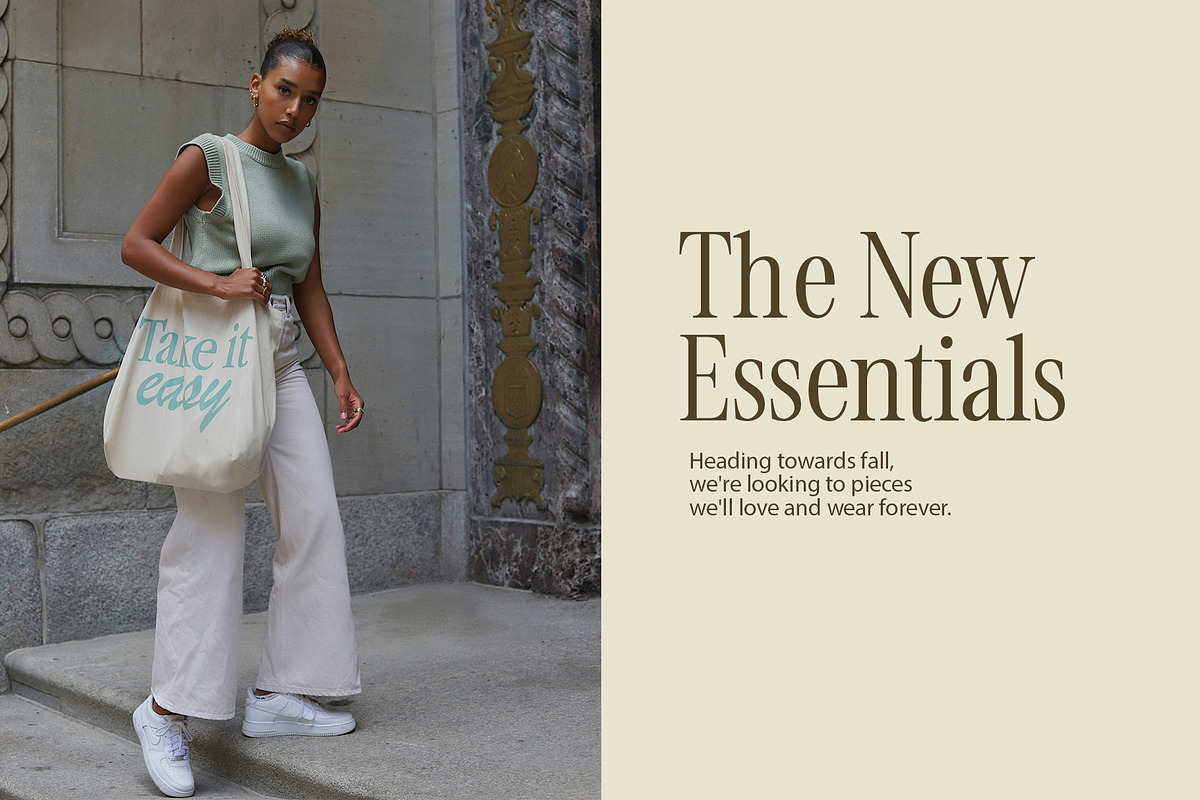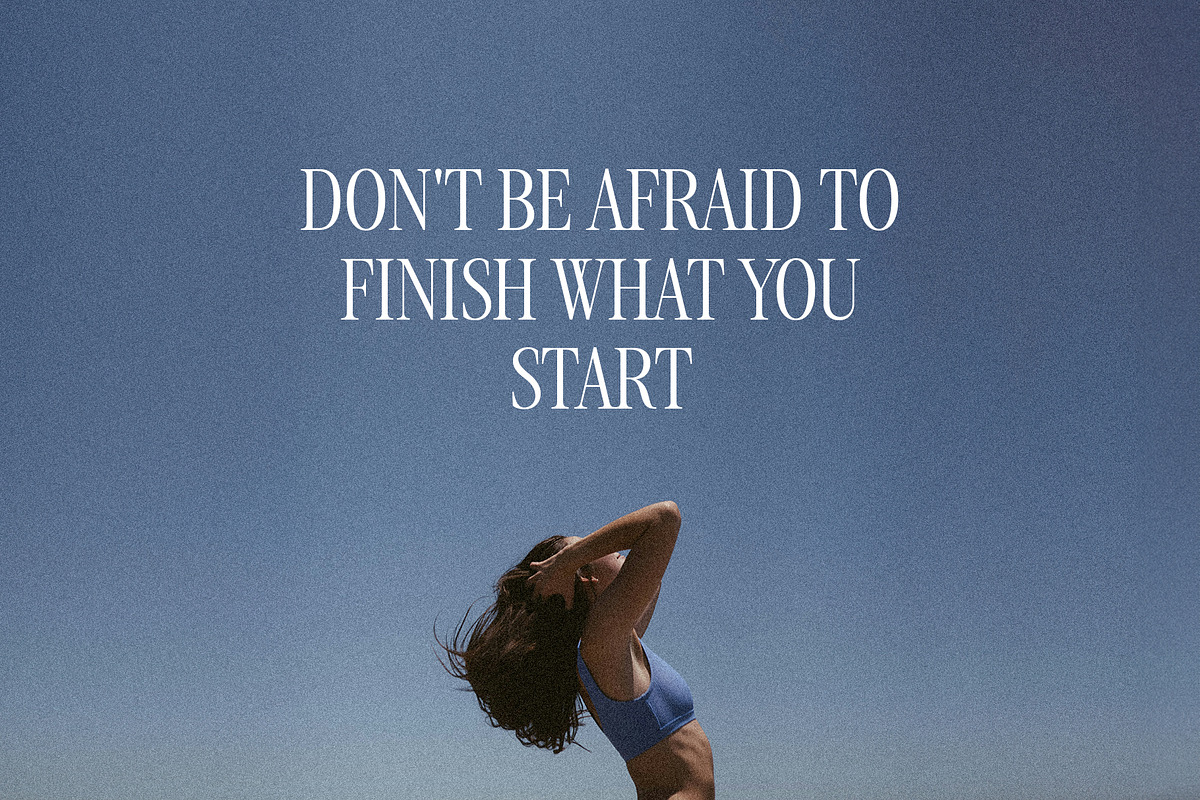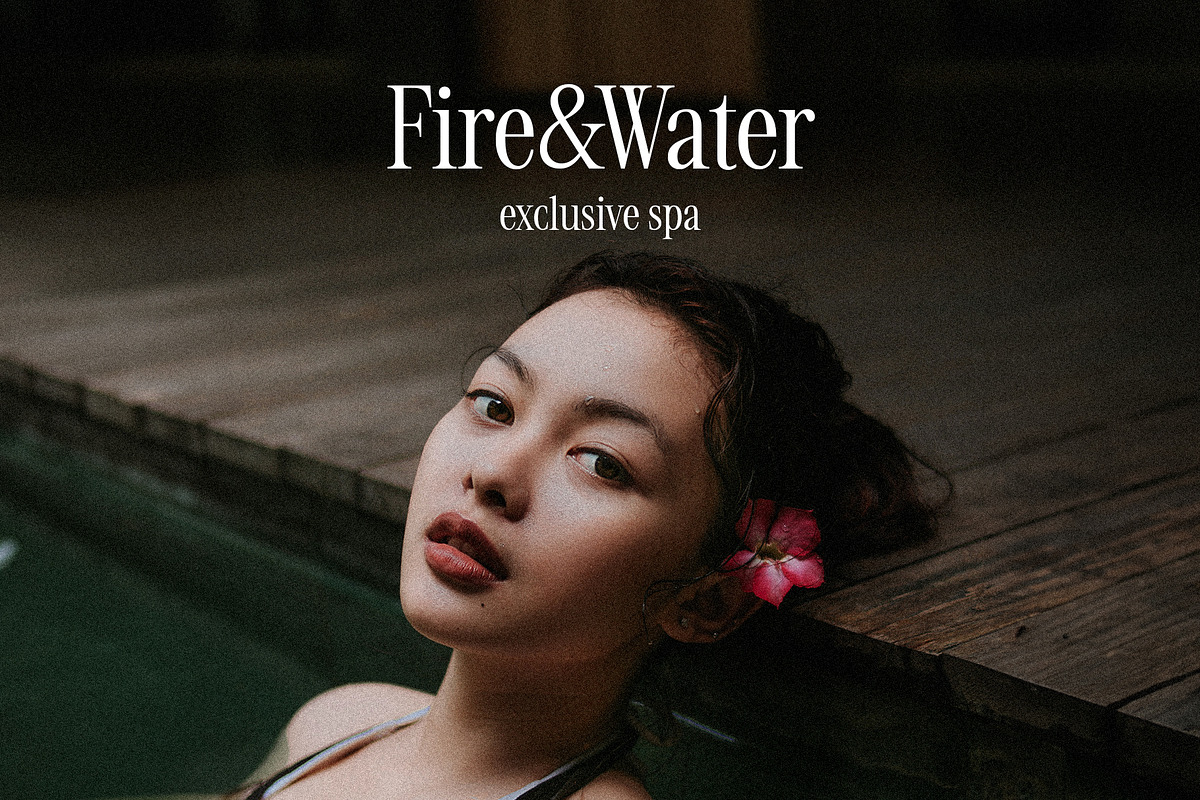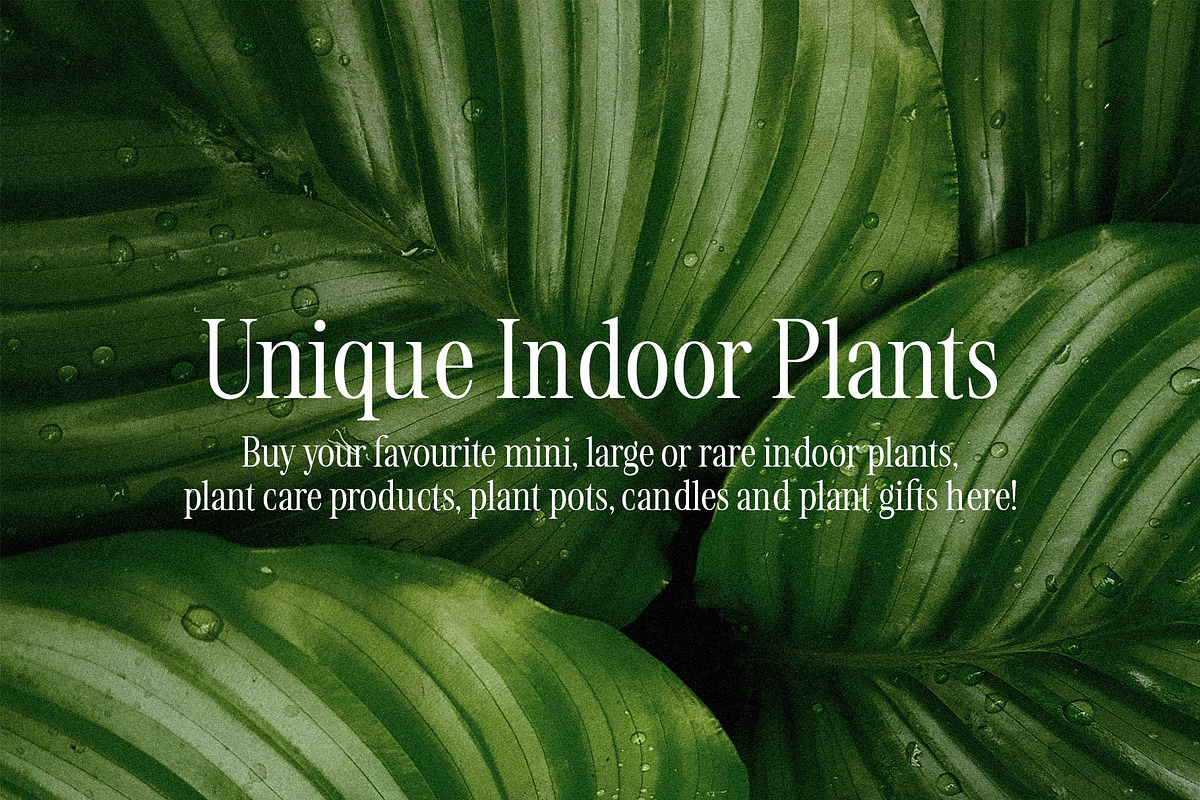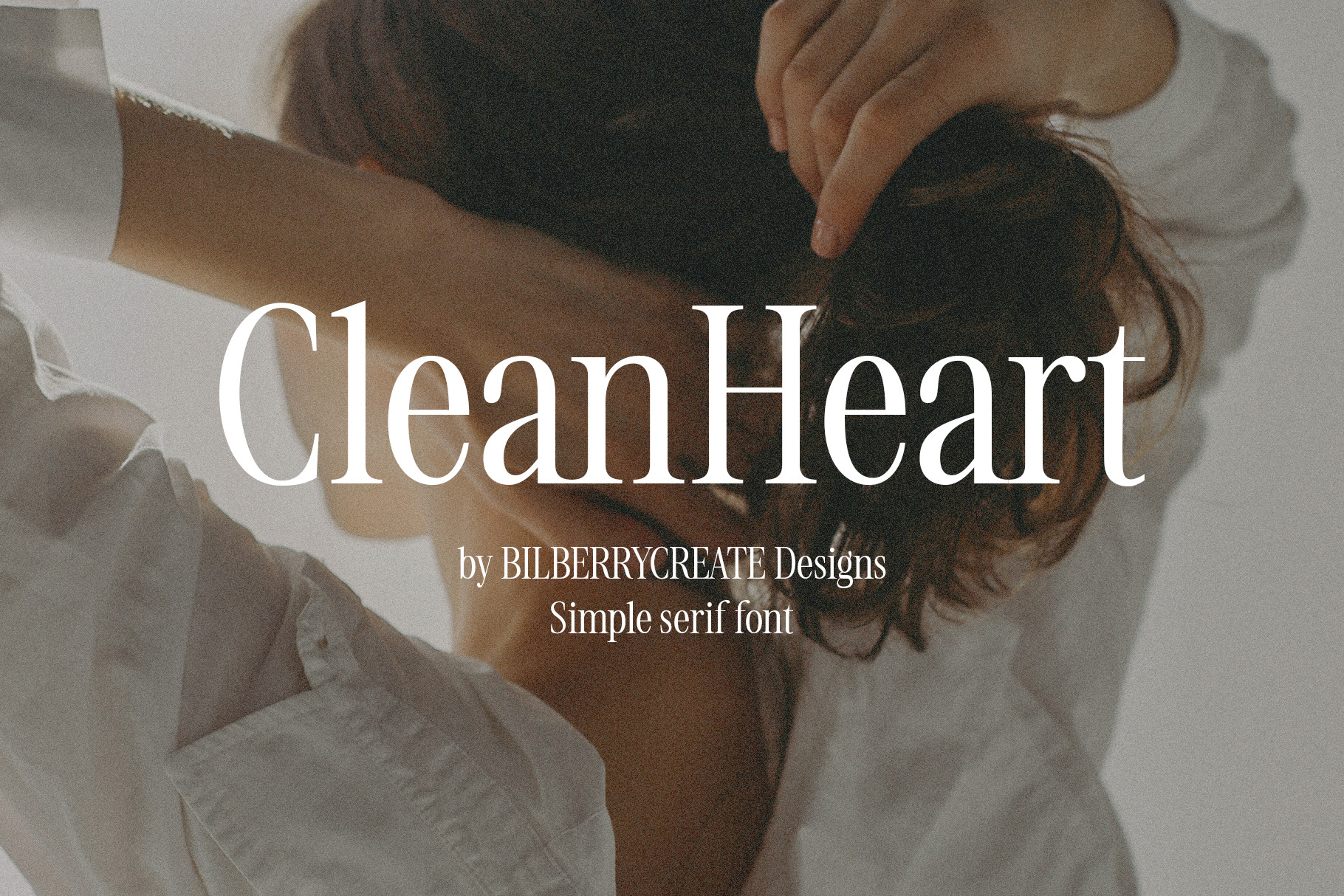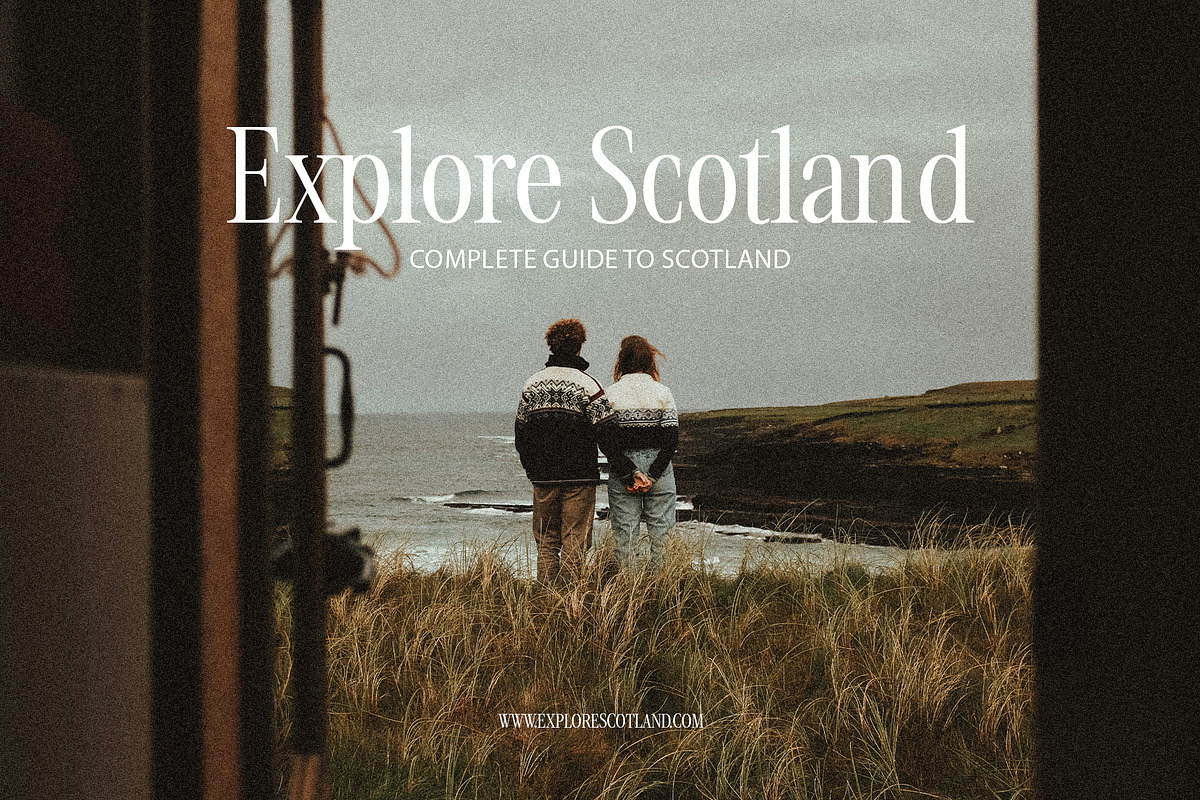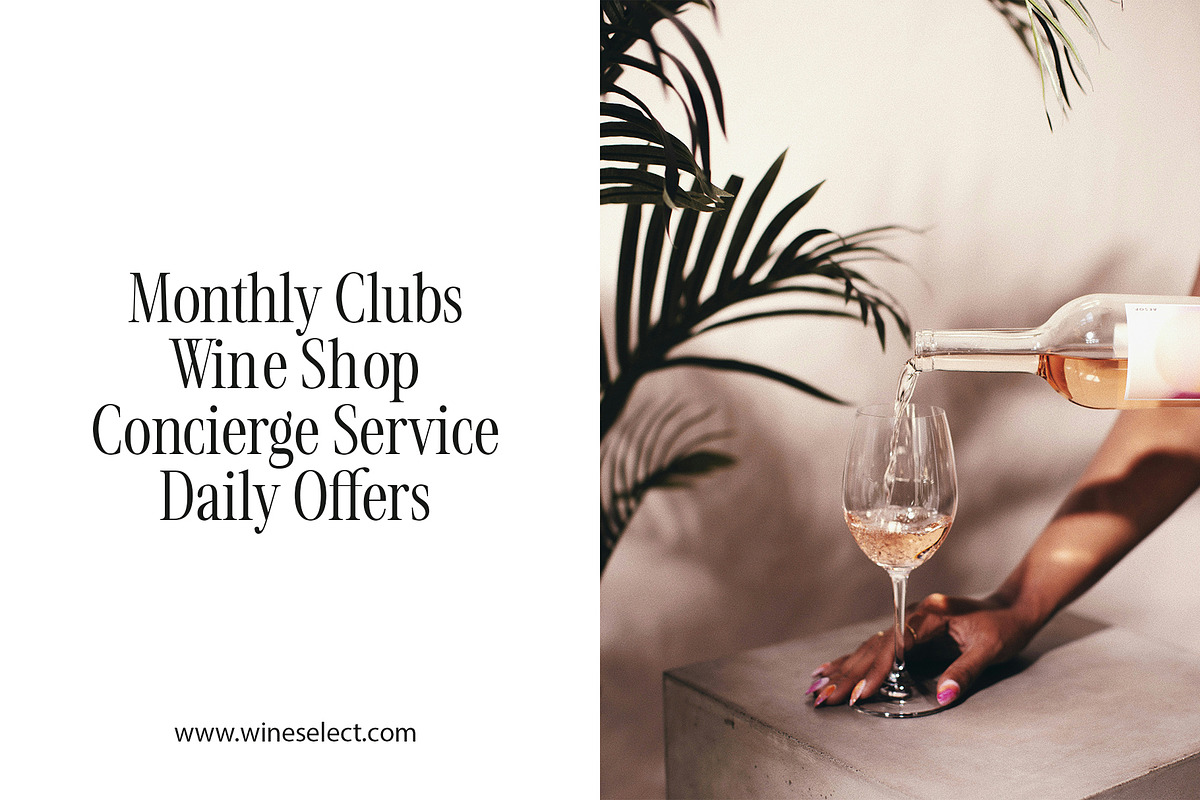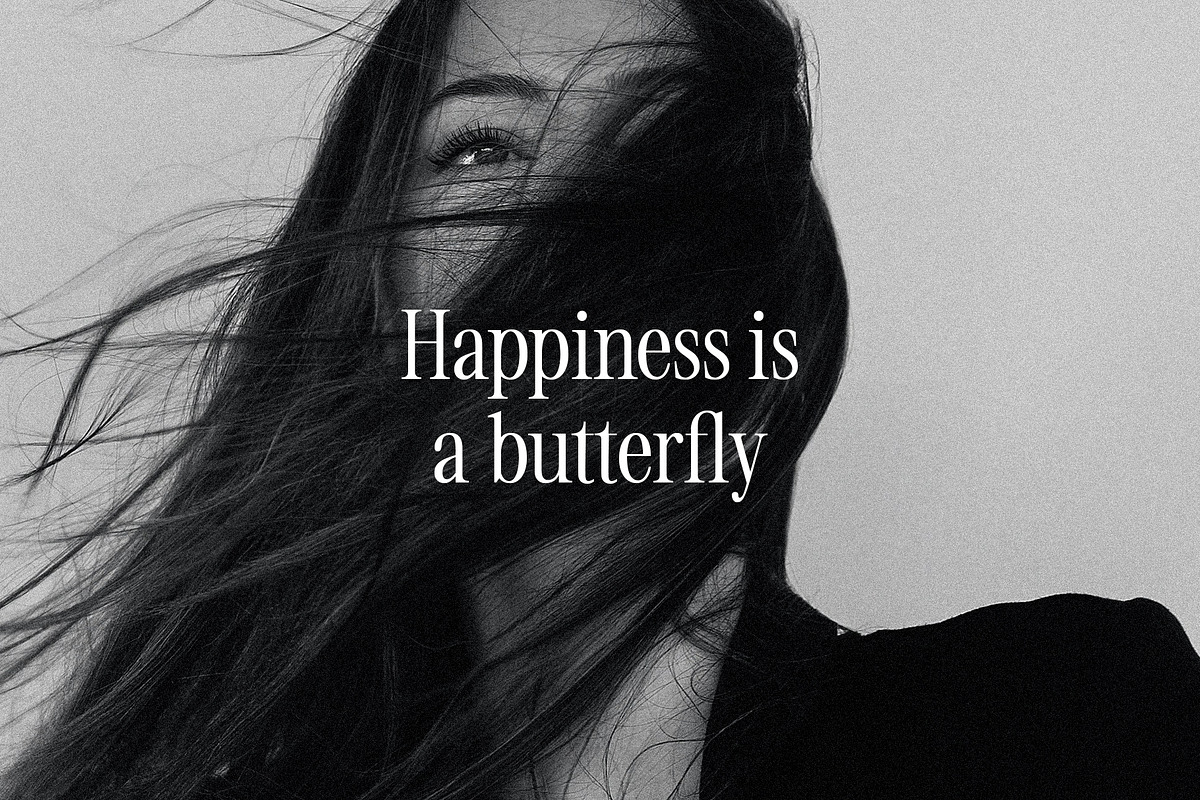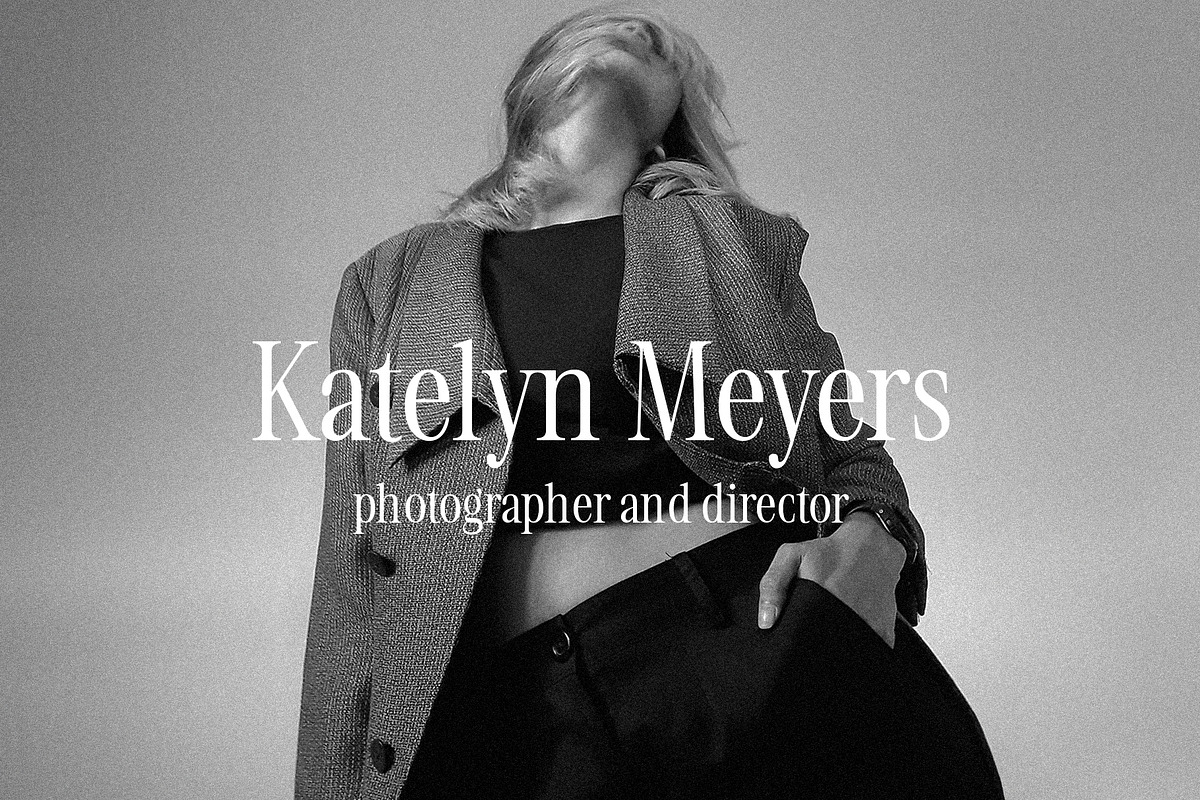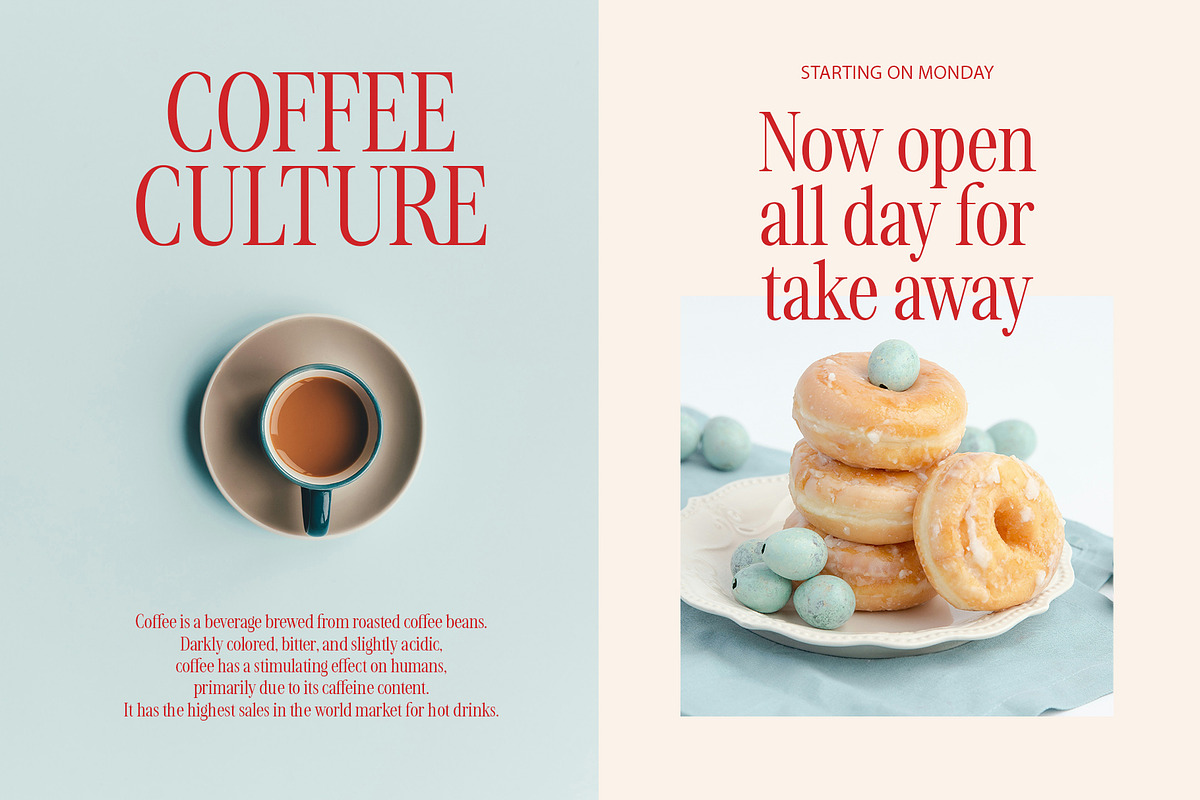
CleanHeart - Simple serif font
CleanHeart - Simple serif font!
This pack can be used to create anything as you wish, logos invitation cards, make scrapbooking, wedding cards, birthday cards, home decor, packaging holiday gifts, party decorations, print on fabrics and so much more.